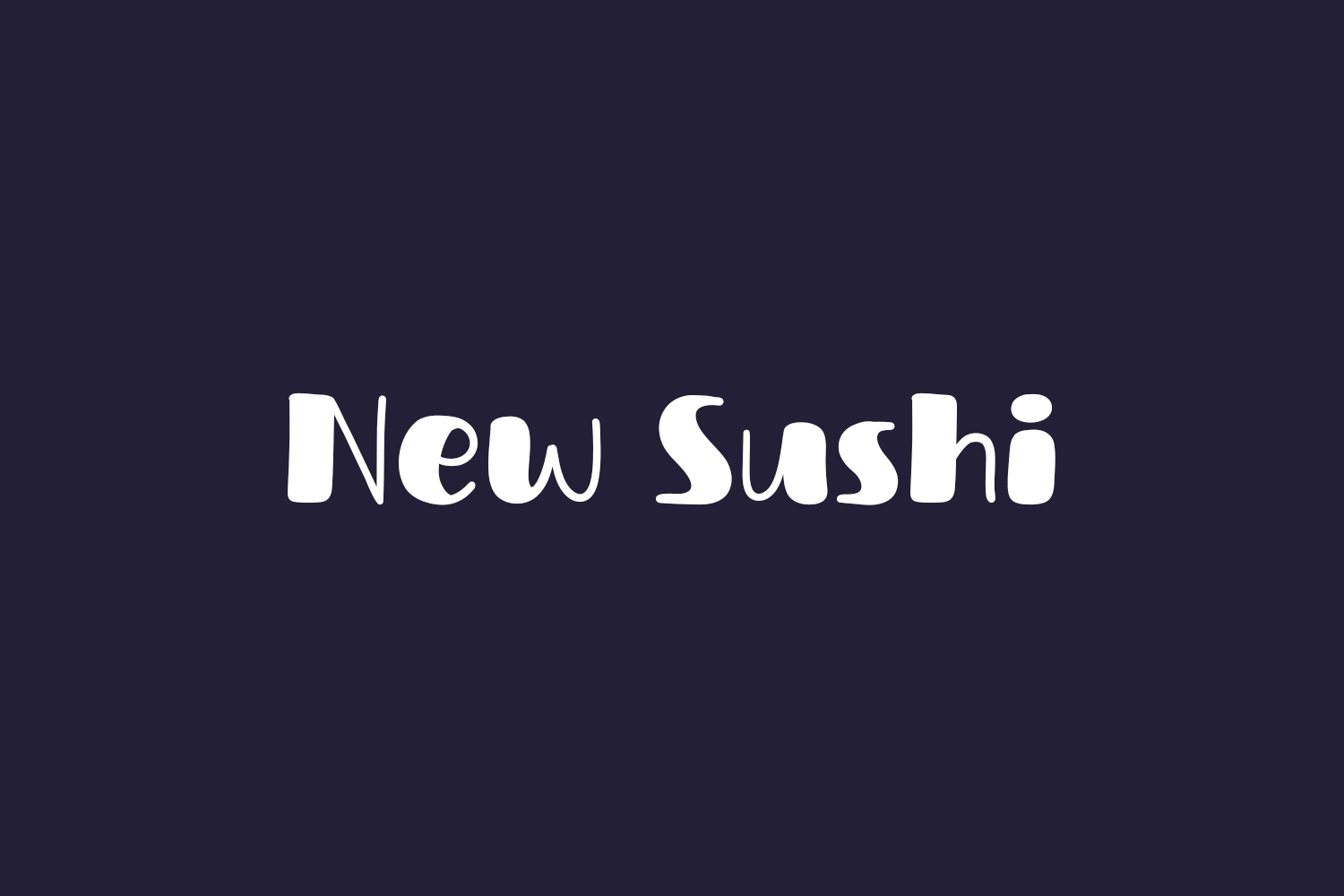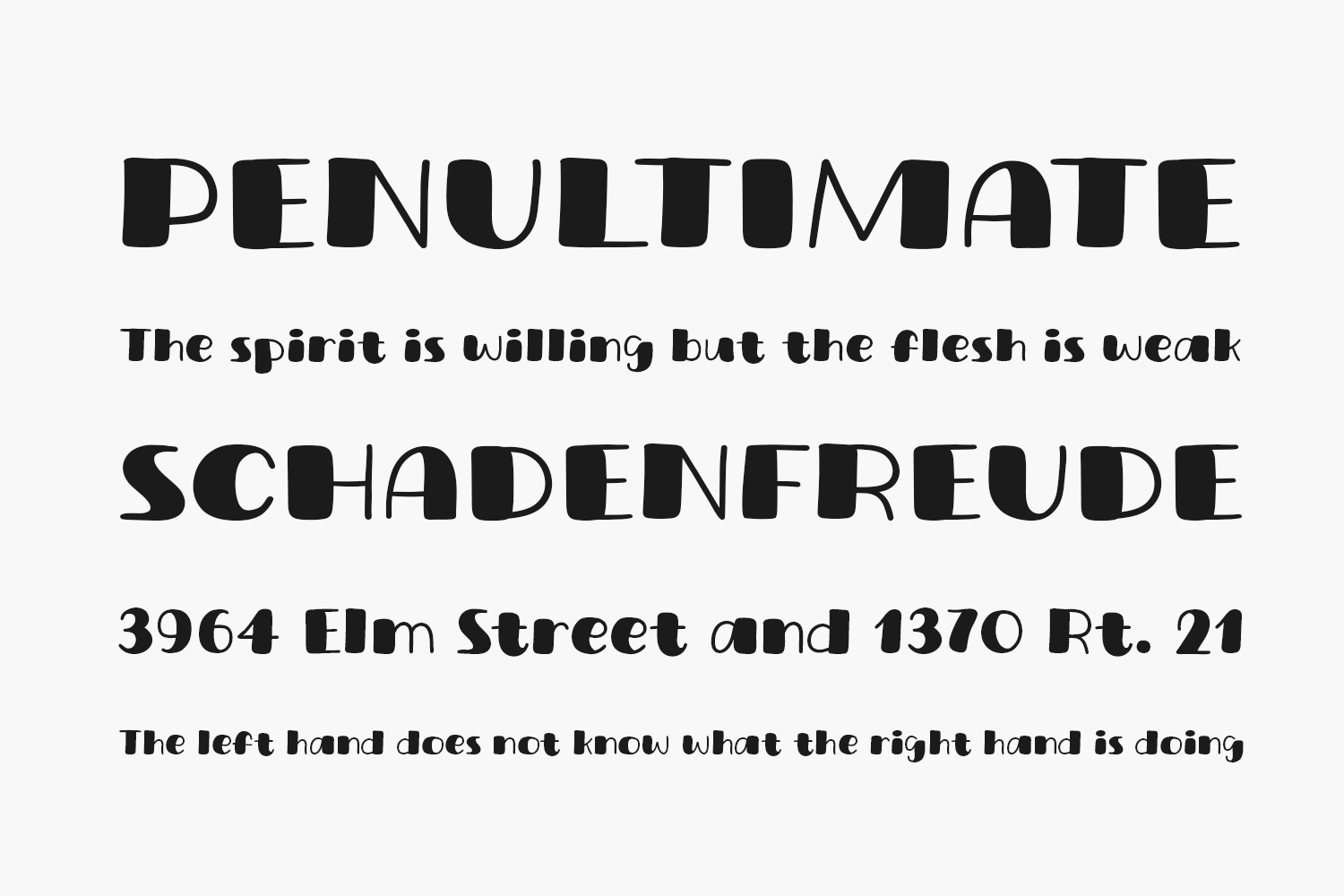
Introducing New Sushi Free Font, a contemporary and charming handwritten display font that’s tailor-made for posters, logos, magazines, book covers, banners, and beyond! Acquire this fantastic font and infuse your designs with its delightful essence. Its versatility allows it to seamlessly blend with a vast array of projects, giving your creative ideas that extra edge to truly stand out. New Sushi Free Font is free for personal use only. Please purchase the full version for commercial use.